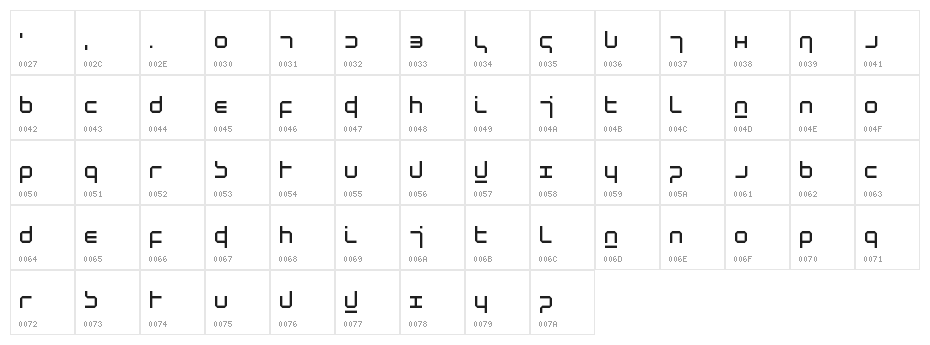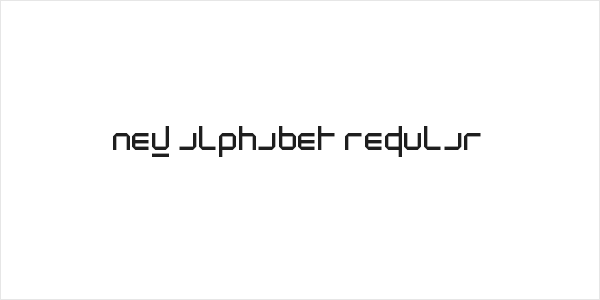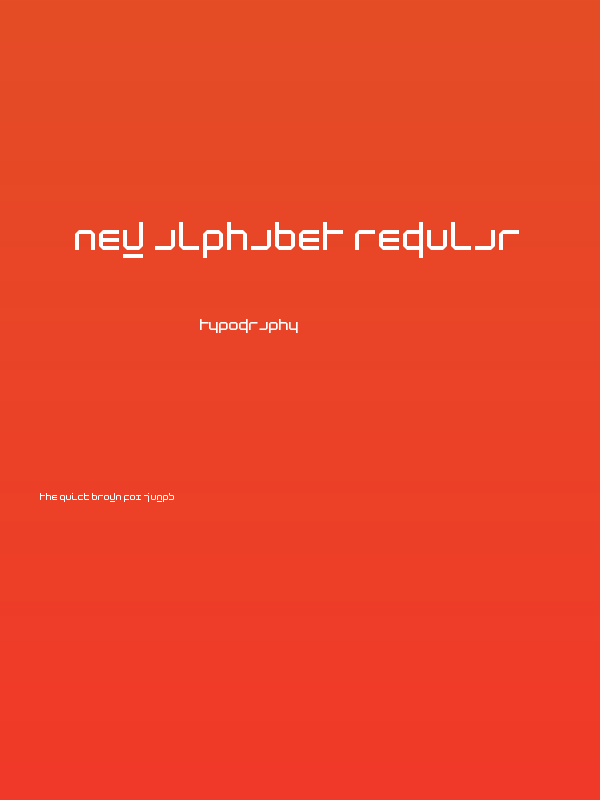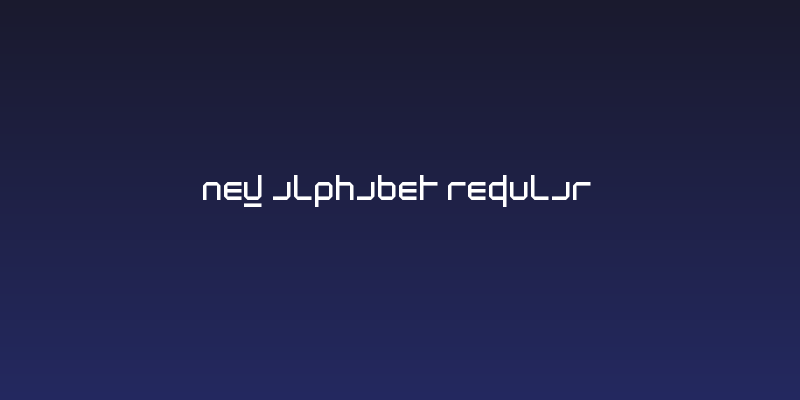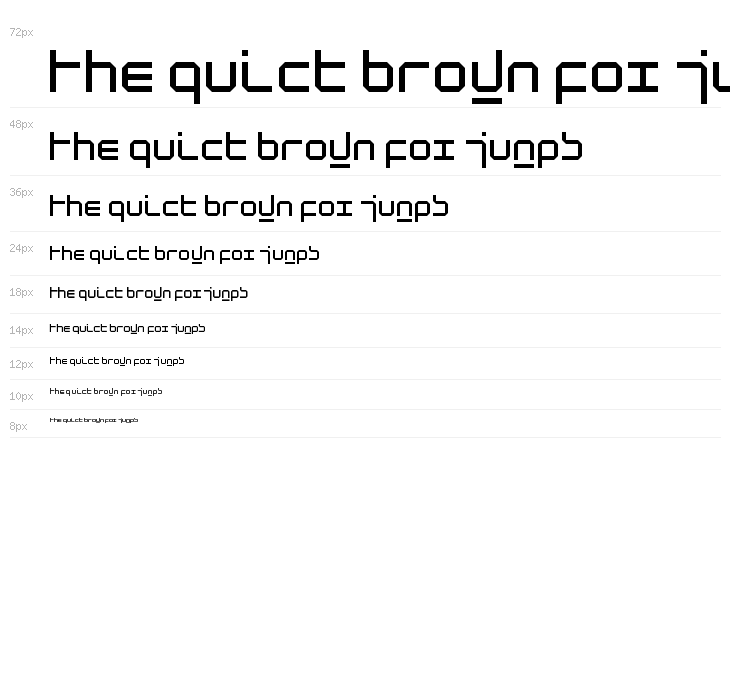
New Alphabet Regular Font
New Alphabet Regular Description
This font features a unique, futuristic design with geometric shapes and sharp angles. The characters are constructed with a consistent line thickness, giving it a uniform appearance. The uppercase and lowercase letters share similar structural elements, creating a cohesive look. The numbers and special characters maintain the same angular style, enhancing the font's modern aesthetic. The overall design is minimalistic yet striking, making it suitable for projects that require a contemporary and tech-inspired feel.